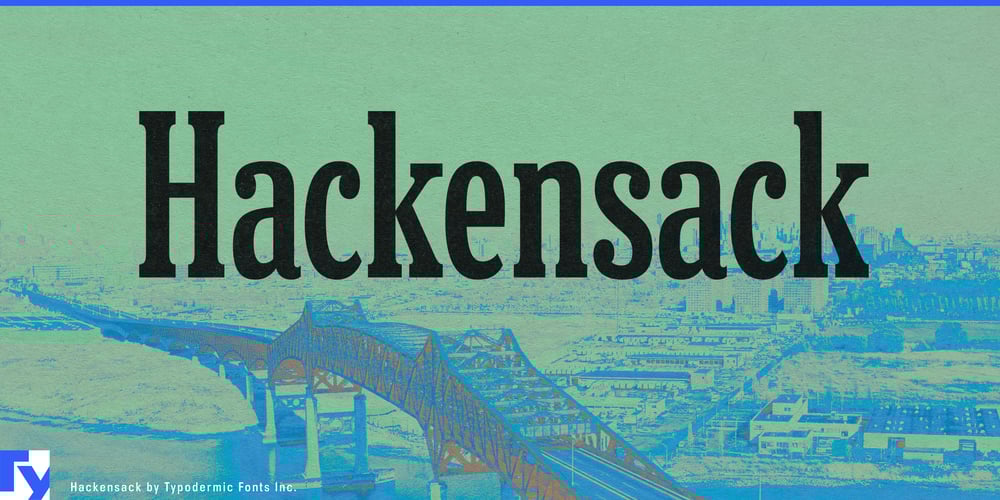
Hackensack Font Family was designed by Ray Larabie, Chikako Larabie and published by Typodermic. Hackensack contains 1 styles and family package options. Step back in time with Hackensack, a typeface that stands as solid as the foundations of a century-old factory. This Clarendon-inspired narrow slab serif doesn’t just nod to the past—it grabs it by the collar and brings it roaring into the present. Hackensack is more than a font; it’s a time machine cast in metal type, ready to stamp its authority on any design that dares to employ it.With the confidence of a seasoned foreman and the charm of a vintage advertisement, Hackensack commands attention without shouting. Its compact frame and robust serifs evoke the era of steam engines and teletype machines, yet it stands ready to tackle the demands of modern design with unwavering resolve. This is a typeface that doesn’t merely suggest vintage appeal—it exudes it from every carefully crafted curve and corner. Hackensack’s versatility is as impressive as its pedigree. In headlines, it bellows your message with the resonance of a factory whistle. In logos, it etches your brand into memory like a craftsman’s mark on fine woodwork. And when you need that extra touch of historical authenticity, Hackensack’s old-style numerals—accessible in OpenType-savvy applications—add a flourish as elegant as a conductor’s pocket watch.But Hackensack isn’t content to rest on its laurels in the English-speaking world. Like a well-traveled merchant of yesteryear, it has picked up languages from across the globe. From the bustling streets of Hanoi to the windswept steppes of Russia, Hackensack speaks with a polyglot’s tongue, supporting a vast array of Latin-based European languages, Vietnamese, and a selection of Cyrillic scripts. It’s as comfortable setting Slavic poetry as it is crafting Vietnamese signage or Spanish novels.In a world of fleeting trends, Hackensack stands as a testament to enduring style. It’s not just a typeface—it’s a statement piece, a conversation starter, a reliable workhorse that brings a touch of industrial-era gravitas to every project it graces. So roll up your sleeves and let Hackensack do the heavy lifting in your designs.